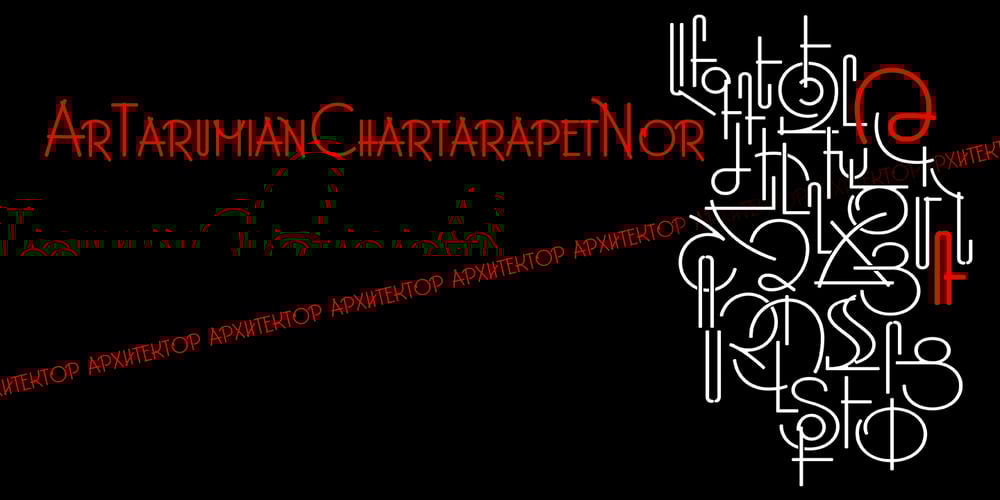
ArTarumianChartarapetNor Font Family was designed by Ruben Hakobyan (Tarumian) and published by Tarumian. ArTarumianChartarapetNor contains 1 styles and family package options. Font ArTarumianChartarapetNew (Chartarapet from Arm. “Architect” was created as a stylization to traditional architectural lettering.